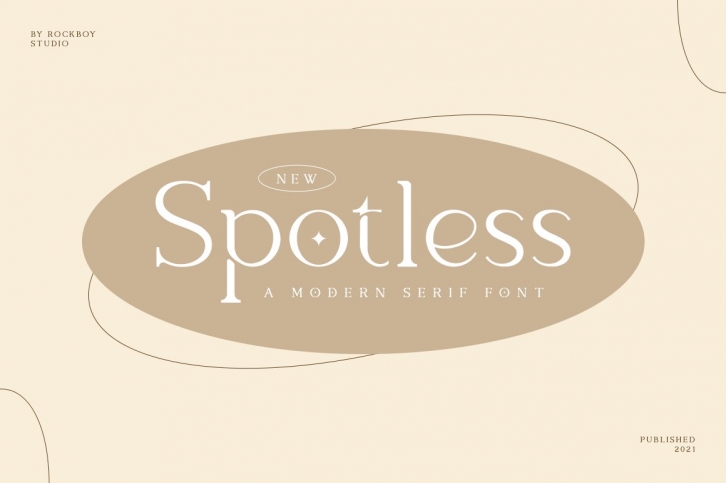
Spotless is a beautiful font that was designed by Rockboy Studio. It's a great choice for designers and creatives who need such a font. It was released on January 10, 2022 and the file size is 11.17 MB. Spotless may give a more youthful, expressive and casual look to your project. It is a very beautiful, refined, elegant, and high-quality font.